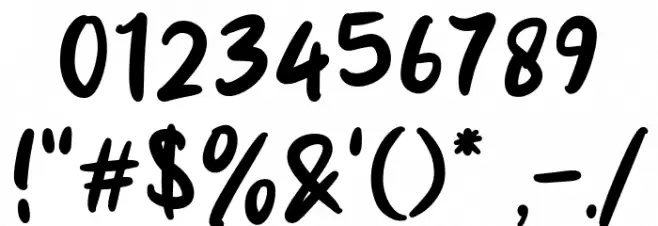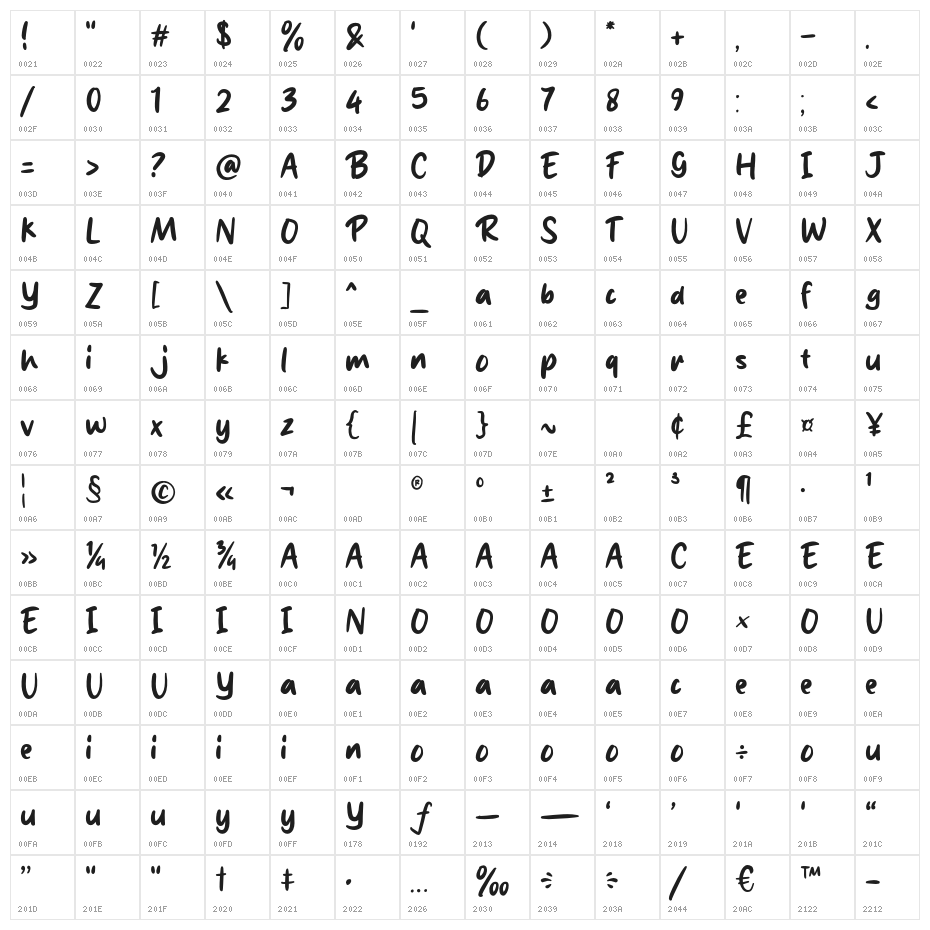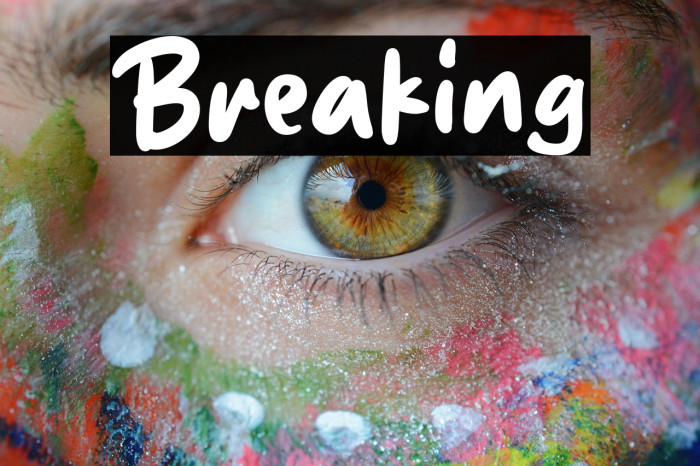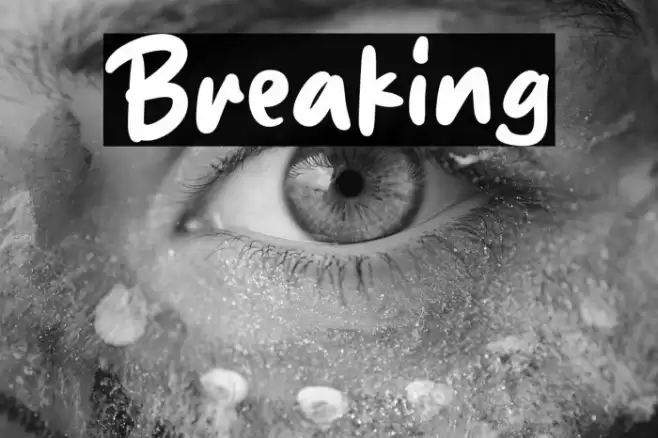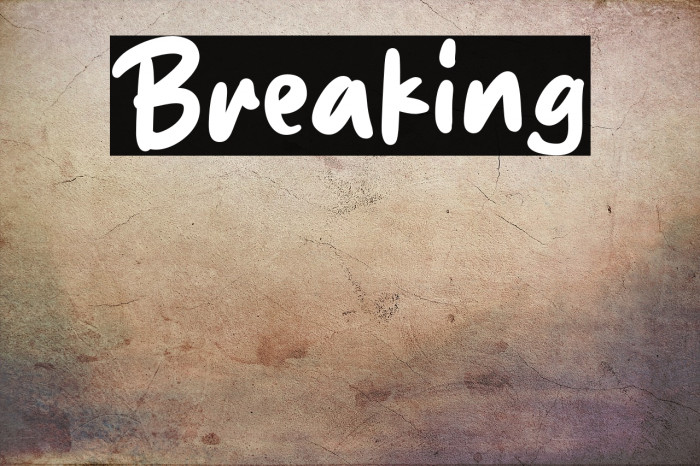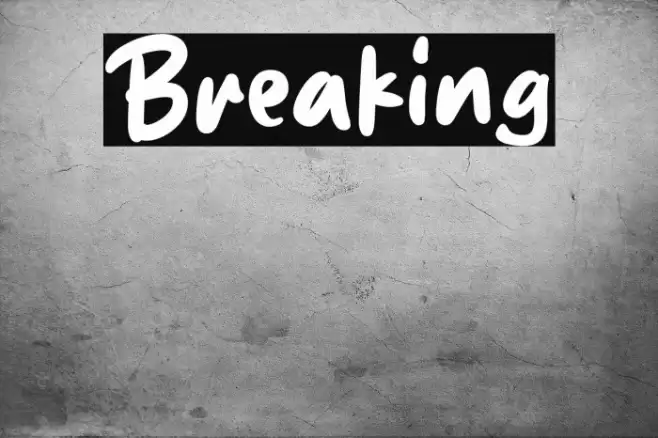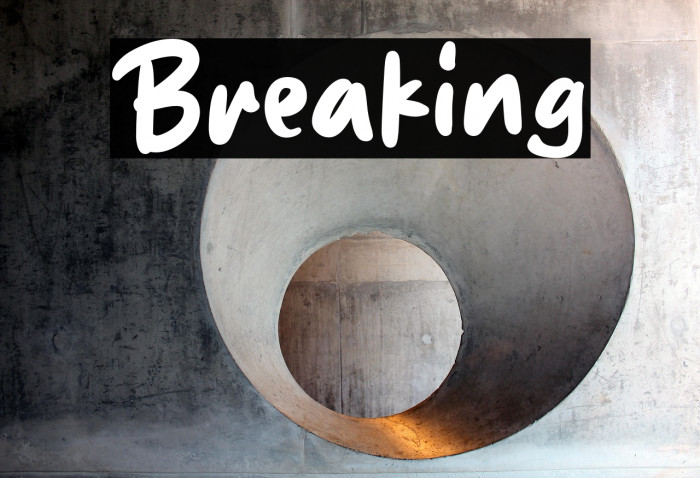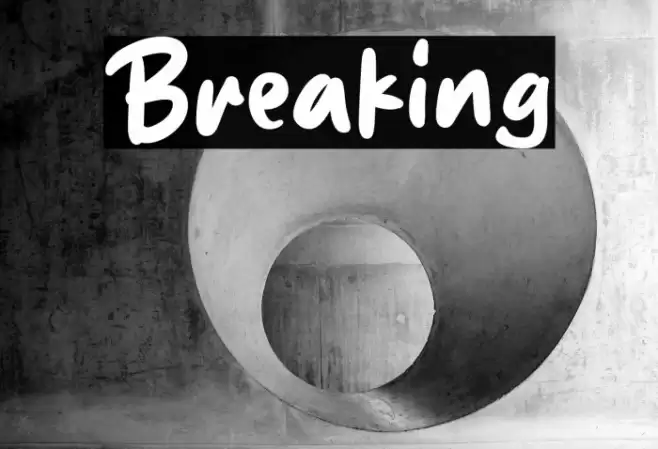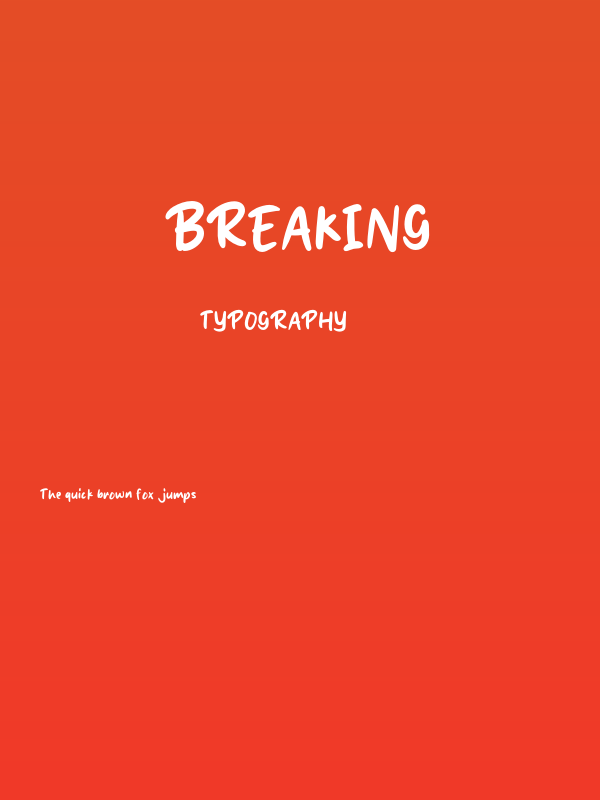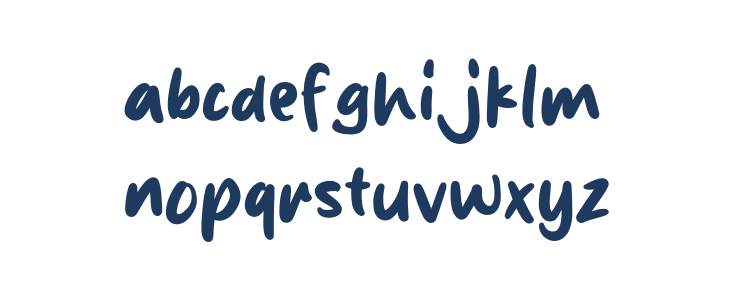
Breaking Font
Breaking Description
This font features a bold and playful handwritten style, characterized by its thick strokes and casual appearance. The letters are slightly slanted, giving it a dynamic and energetic feel. The uppercase and lowercase letters maintain a consistent flow, with rounded edges that enhance its friendly and approachable look. Numbers and special characters are designed to match the overall style, ensuring uniformity across all elements. The font's informal and lively nature makes it suitable for projects that require a personal touch or a sense of fun.
| Overall Style | Playful, Casual |
| Use Case | Logos, Headlines, Informal Invitations |
| Proposed Projects | Ideal for greeting cards, children's books, playful branding, and social media graphics. |